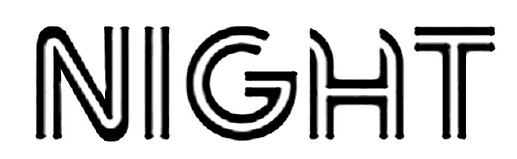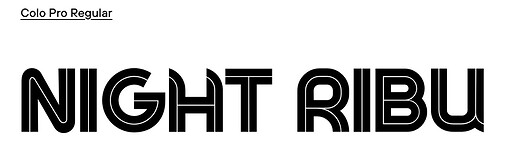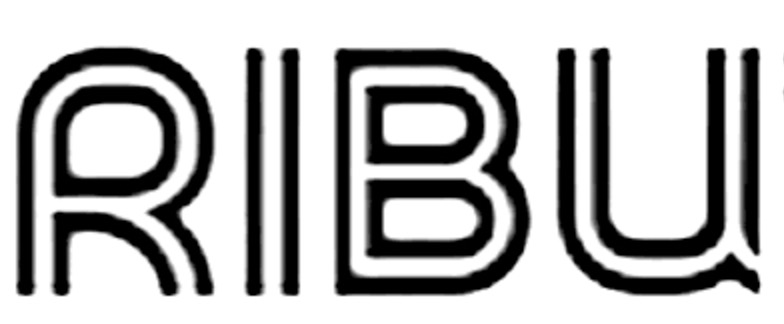
I’ve looked in all the usual places (and some unusual ones) … the ‘H’ has me stumped.
NVM I found it - the white lines were way too wide so I redrew a few letters and found it right away.